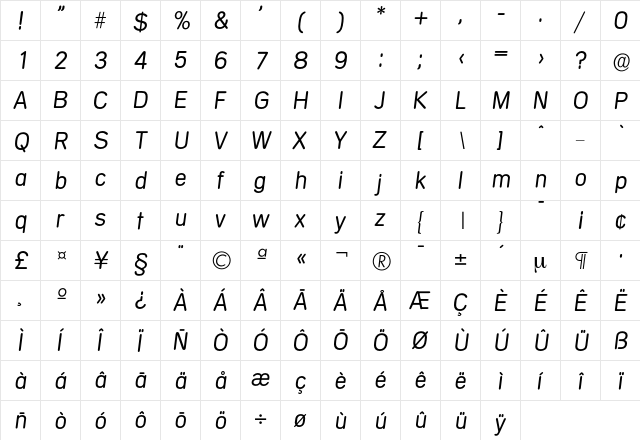
Mercedes-LightIta Regular Font Preview
Mercedes-LightIta Regular
Mercedes-LightIta Regular Font Details
Design Context for Mercedes-LightIta Typeface
Mercedes-LightIta offers clean, dependable letterforms without strong stylistic allegiance, making it a practical choice for designers who need flexibility. The delicate stroke weight brings airiness and refinement to layouts.